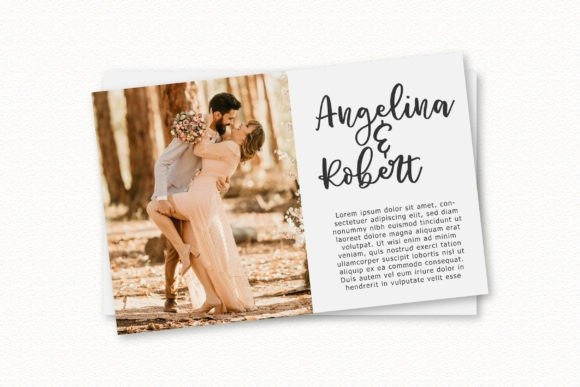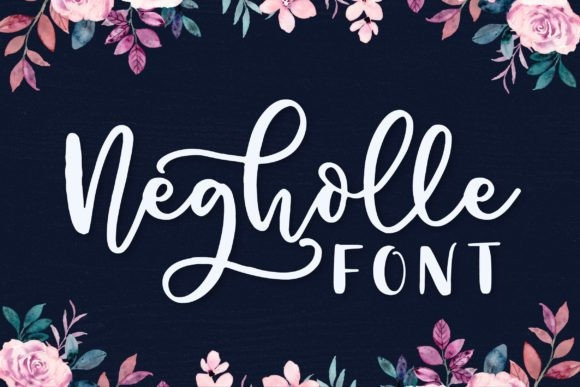
Negholle Font
Introducing the breathtakingly beautiful “Negholle” font, the epitome of romance and elegance. Its gentle curves and delicate strokes create a timeless, handwritten feel that is both sophisticated and whimsical. Perfect for wedding invitations, love letters, and any project that requires a touch of romance.
Keep in mind that the font is PUA encoded, meaning that you can access all delightful glyphs and swashes effortlessly.